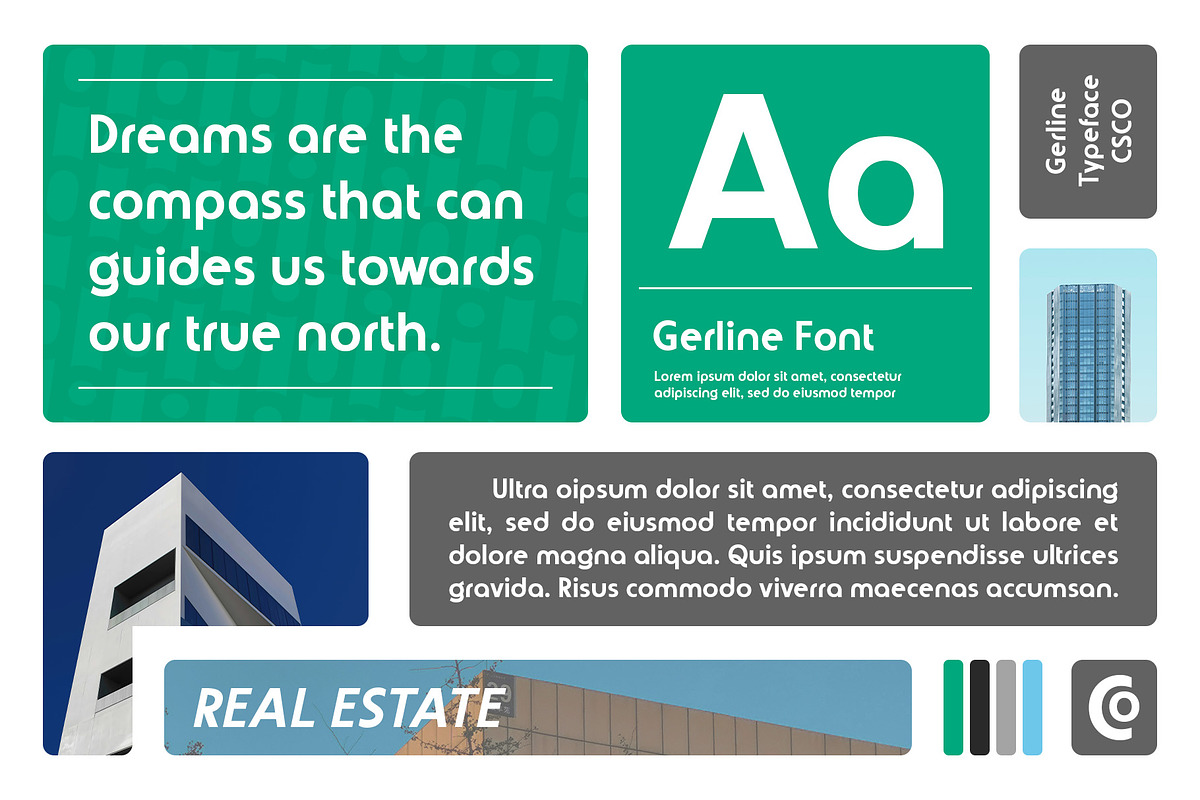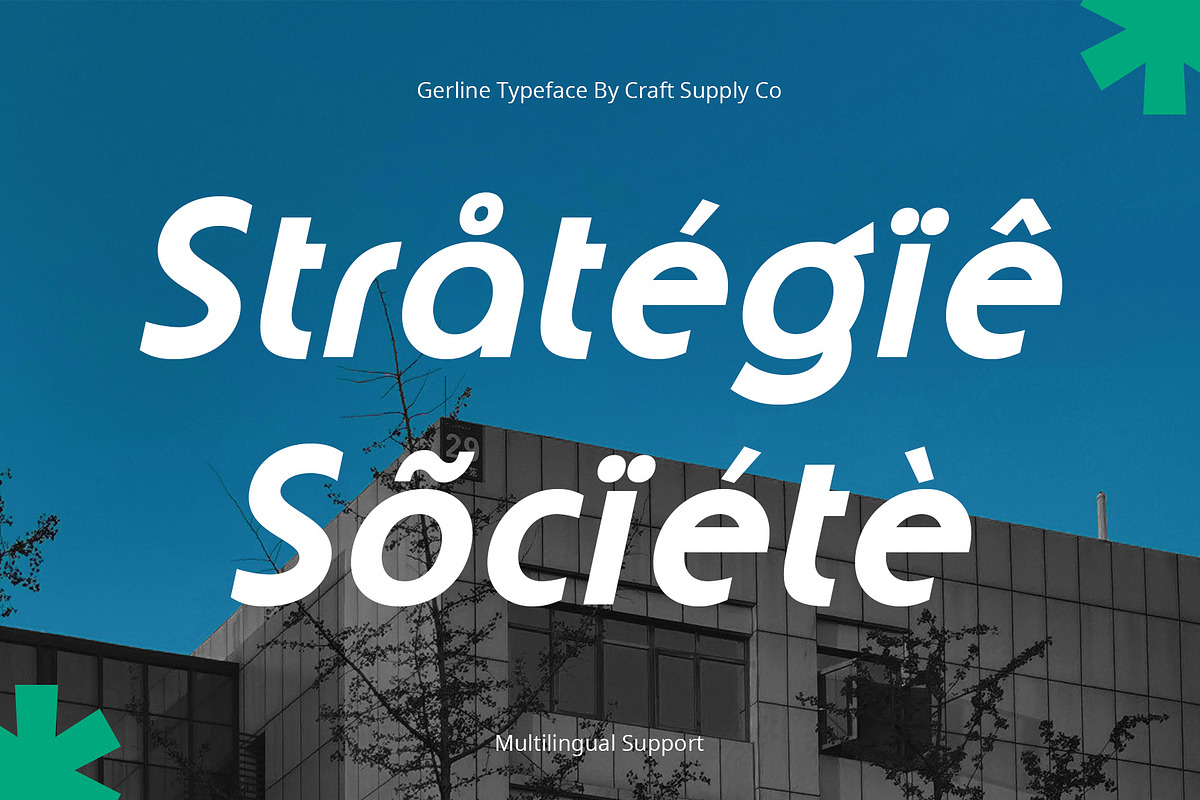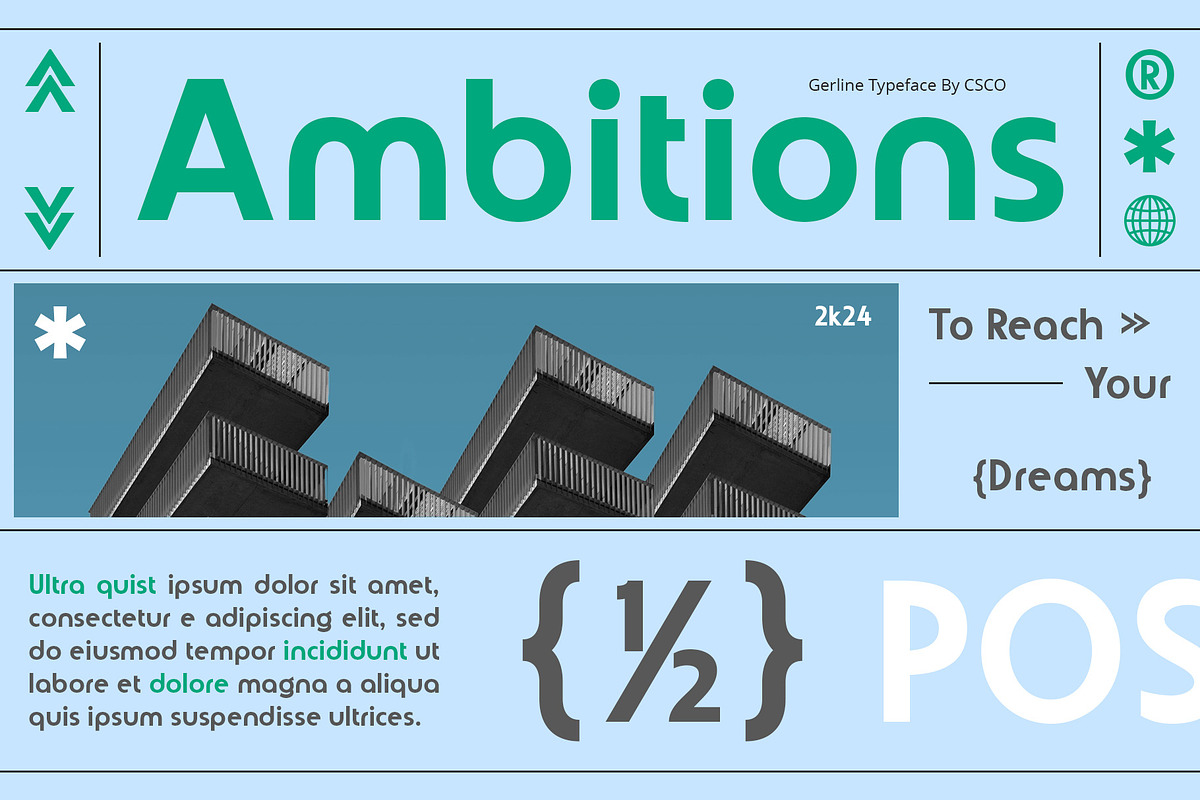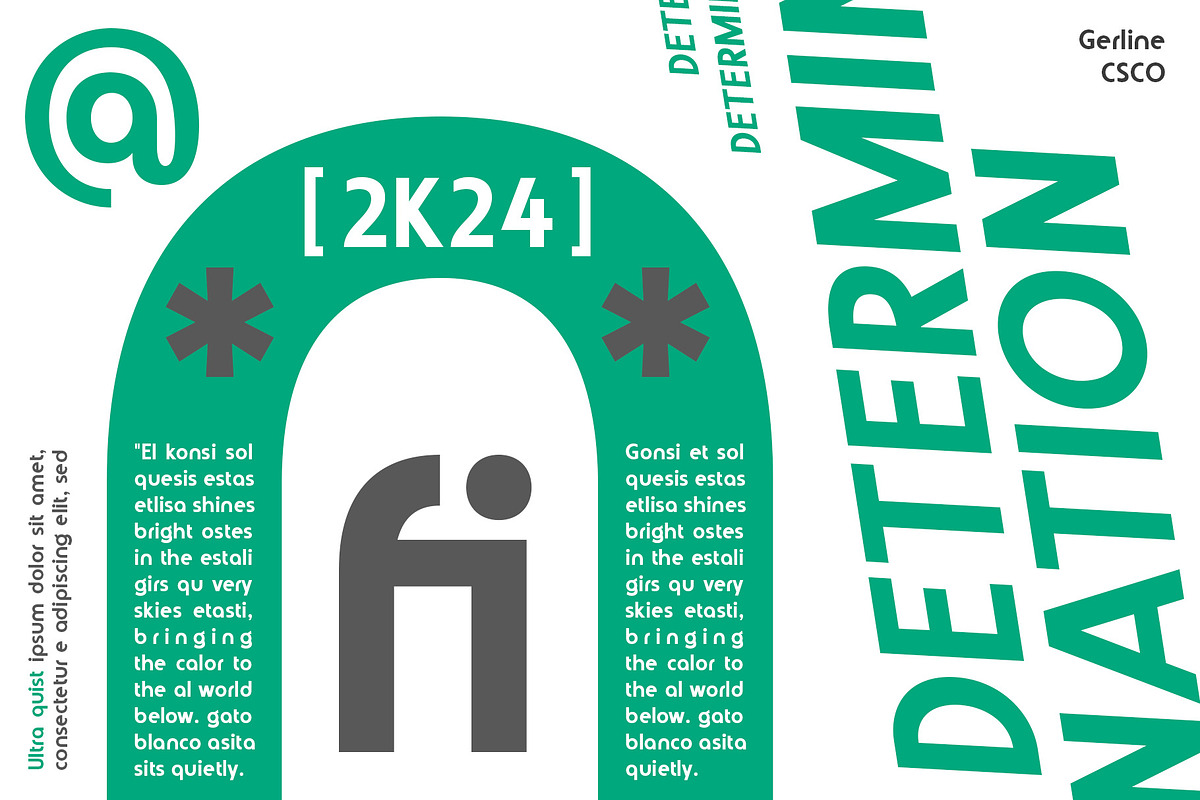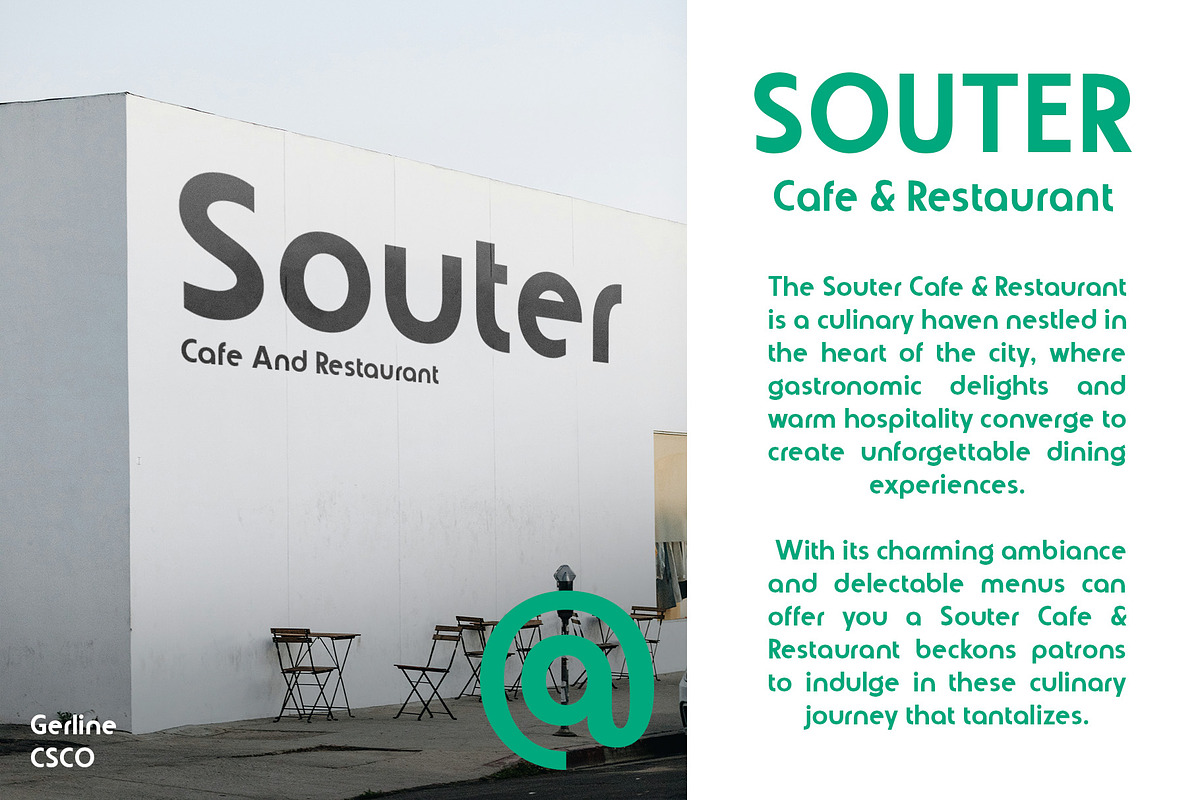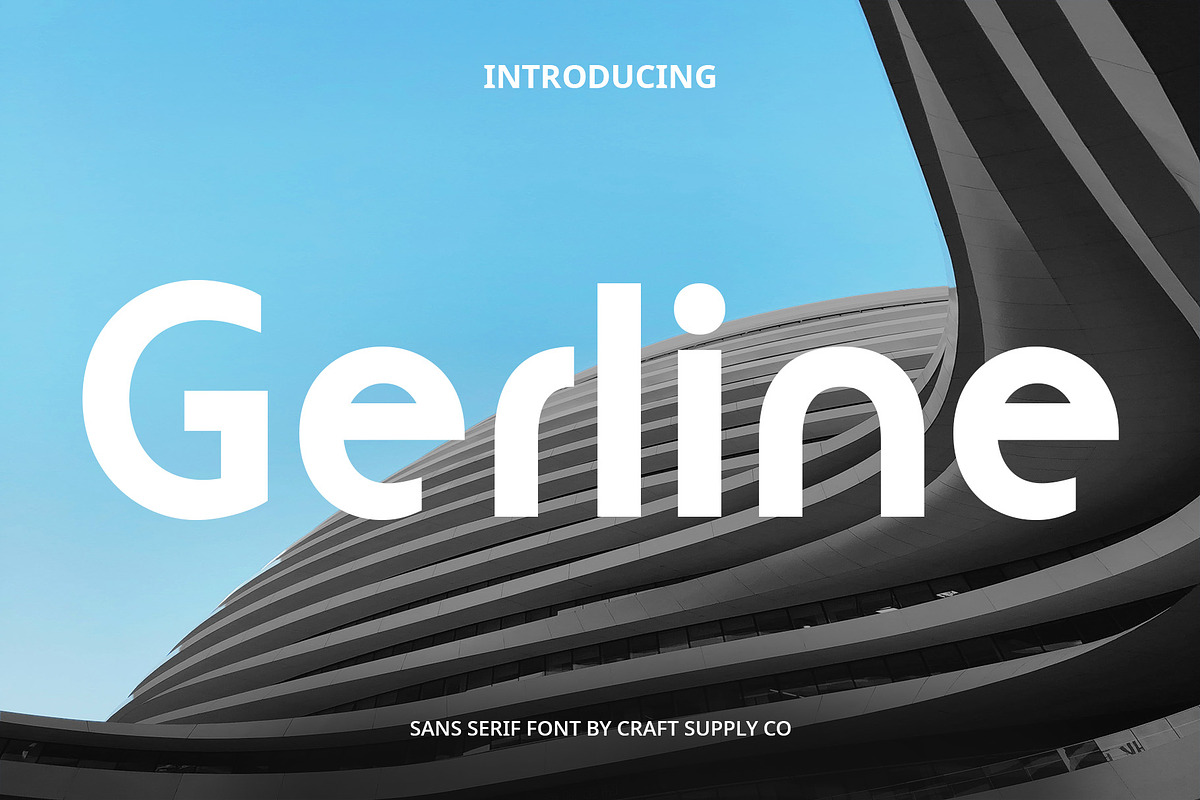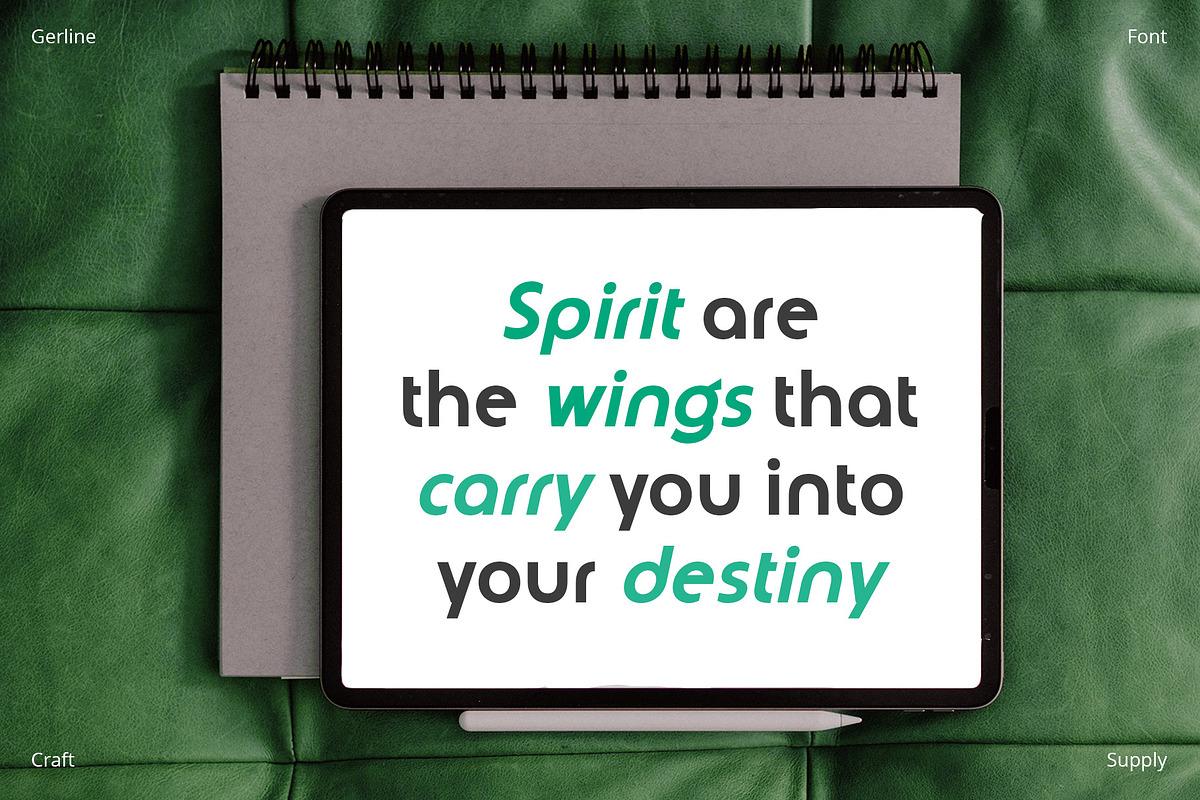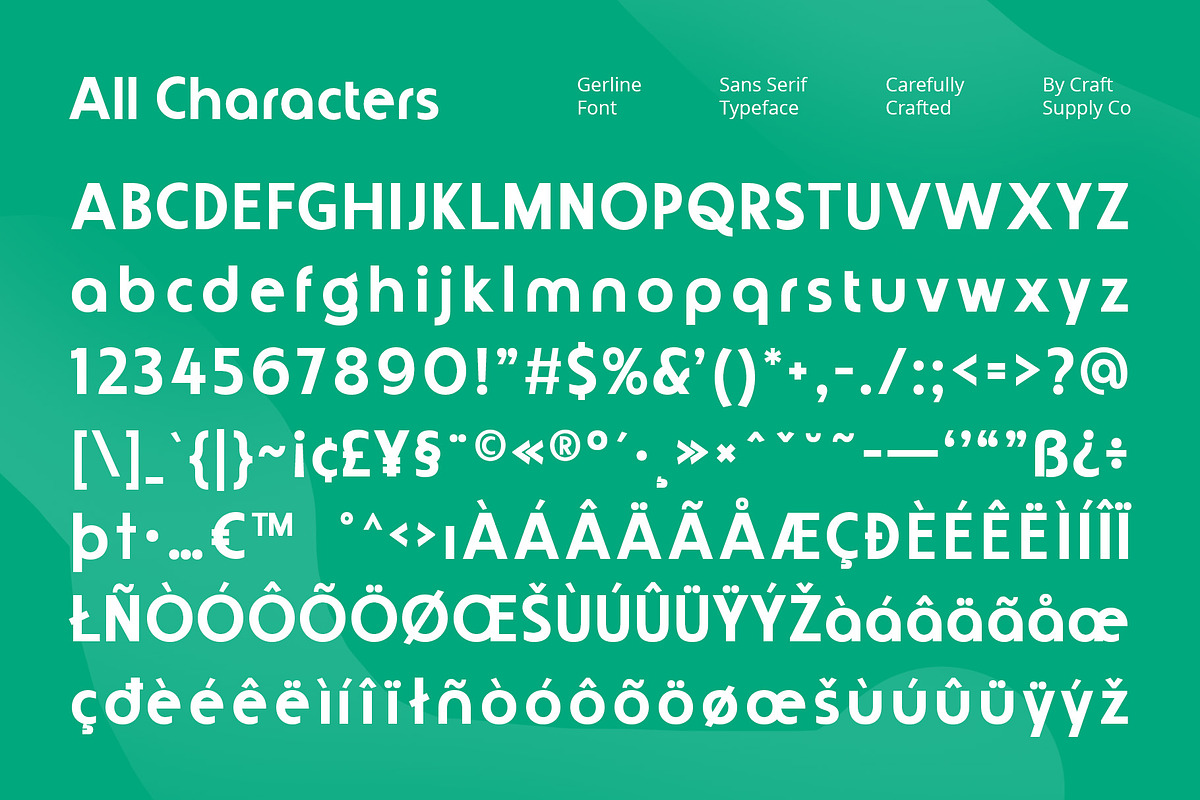
Gerline – Contemporary Sans
Gerline – Contemporary Sans: Where Professionalism Meets Style
Sleek Sans-Serif Design
Gerline – Contemporary Sans is a sleek sans-serif font designed for the professional world. Its clean lines and modern appearance make it perfect for a wide range of applications, from corporate documents to web design.
Versatile and Elegant
With its versatile and elegant design, Gerline Font is suitable for a variety of uses, including headlines, body text, and branding. Its contemporary style adds a touch of sophistication to any project.
Enhanced Readability
Gerline Font prioritizes readability, ensuring that your message is clear and easy to understand. Whether used in print or digital media, this font maintains legibility even at small sizes.
Perfect for Professional Use
Whether you’re designing a business card, a website, or a presentation, Gerline Font is the perfect choice for projects that require a professional and modern aesthetic. Its timeless design ensures that your work will always look stylish and up-to-date